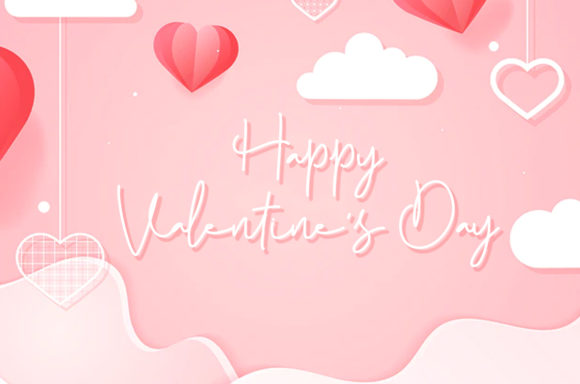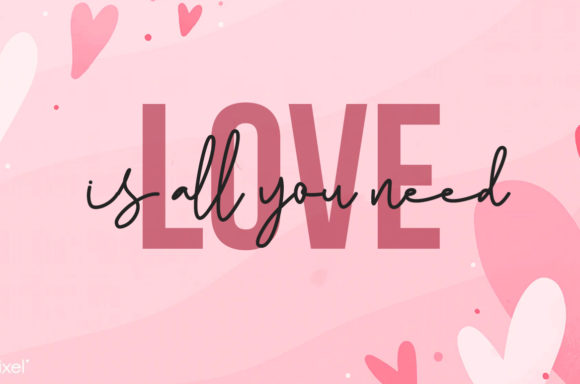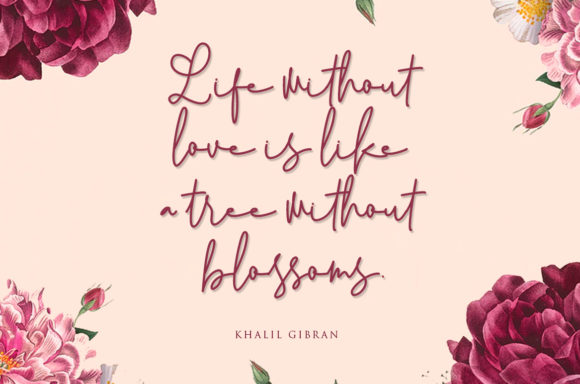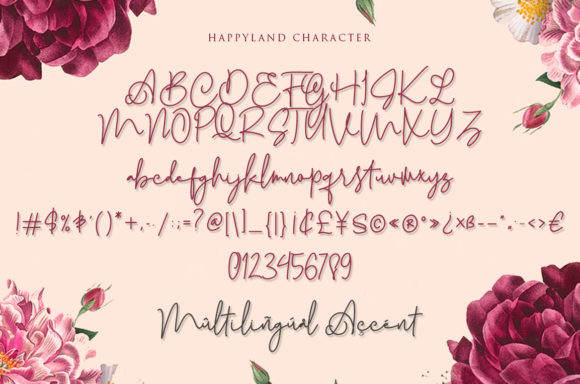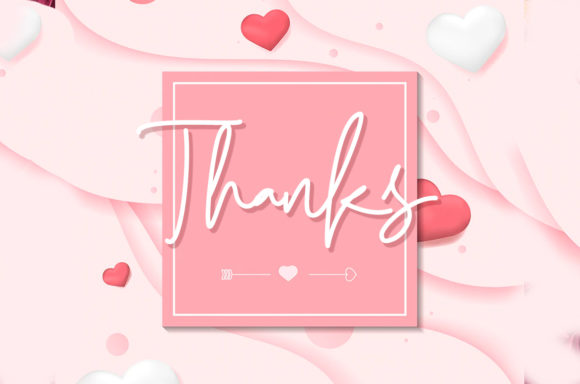
Introducing Happyland Font: The Perfect Choice for Valentine’s and Wedding Crafts
Are you a designer or crafter looking for a font that exudes love, joy, and romance? Look no further than Happyland Font! This delightful display font is specifically designed to add a touch of whimsy and sweetness to your Valentine’s or Wedding crafts. In this article, we’ll dive into the features and benefits of Happyland Font, and explore how it can elevate your creative projects.
What is Happyland Font?
Happyland Font is a lighthearted and romantic display font that is perfect for creating eye-catching titles, headings, and phrases for your Valentine’s or Wedding crafts. Its playful and charming design makes it an ideal choice for designers and crafters who want to add a personal touch to their projects. Whether you’re creating romantic gift tags, wedding invitations, or Valentine’s Day cards, Happyland Font is sure to make your designs stand out.
Key Features of Happyland Font
- Lighthearted and Romantic Design: Happyland Font boasts a beautiful, airy design that is both playful and elegant.
- Perfect for Valentine’s and Wedding Crafts: This font is specifically designed for Valentine’s and Wedding crafts, making it a great choice for designers and crafters who specialize in these areas.
- Easy to Read: Despite its playful design, Happyland Font is easy to read, even in smaller sizes.
- Versatile: Happyland Font can be used for a variety of creative projects, from gift tags and invitations to cards and social media graphics.
Benefits of Using Happyland Font
So, why choose Happyland Font for your Valentine’s or Wedding crafts? Here are just a few benefits of using this delightful font:
- Adds a Personal Touch: Happyland Font allows you to add a personal touch to your designs, making them more special and meaningful to your clients or loved ones.
- Increases Visual Appeal: The playful and romantic design of Happyland Font is sure to grab attention and add visual appeal to your designs.
- Saves Time: With Happyland Font, you can create beautiful, professional-looking designs in no time.
- Unique and Exclusive: Happyland Font is a unique and exclusive font that will set your designs apart from the rest.
How to Use Happyland Font
Using Happyland Font is easy! Here are a few tips to get you started:
- Pair it with Other Fonts: Happyland Font pairs well with other fonts, such as sans-serif fonts or script fonts.
- Experiment with Colors: Try pairing Happyland Font with different colors, such as pastel colors or bold brights.
- Add Decorations: Add decorations, such as hearts or flowers, to your designs to make them more festive.
In conclusion, Happyland Font is a beautiful and versatile font that is perfect for Valentine’s and Wedding crafts. Its lighthearted and romantic design makes it an ideal choice for designers and crafters who want to add a personal touch to their projects. With its ease of use, unique design, and versatility, Happyland Font is sure to become a favorite in your font collection.